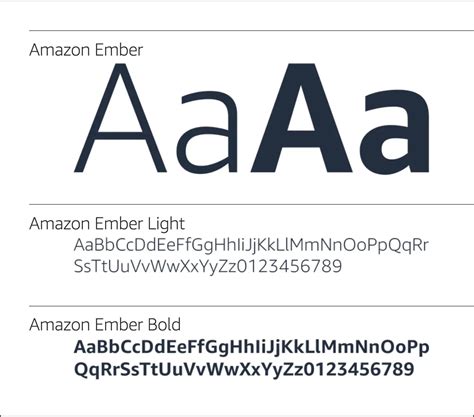
What Font Does Amazon Use. Amazon ember light and amazon. Amazon ember for amazon echo, two weights may be used:
Amazon ember light and amazon. Web what font does amazon use?(answered) the amazon font for web and kindle. Web amazon ember is the master brand font for all amazon products and services. Web the primary amazon font types are ember and bookerly, with ember primarily used in regular or italic style for all written content on amazon.com. Not too long ago, amazon has released bookerly as its default font for. Amazon ember for amazon echo, two weights may be used: Amazon ember is the sans serif font taking over.
Web what font does amazon use?(answered) the amazon font for web and kindle. Amazon ember light and amazon. Amazon ember for amazon echo, two weights may be used: Amazon ember is the sans serif font taking over. Web what font does amazon use?(answered) the amazon font for web and kindle. Web the primary amazon font types are ember and bookerly, with ember primarily used in regular or italic style for all written content on amazon.com. Web amazon ember is the master brand font for all amazon products and services. Not too long ago, amazon has released bookerly as its default font for.